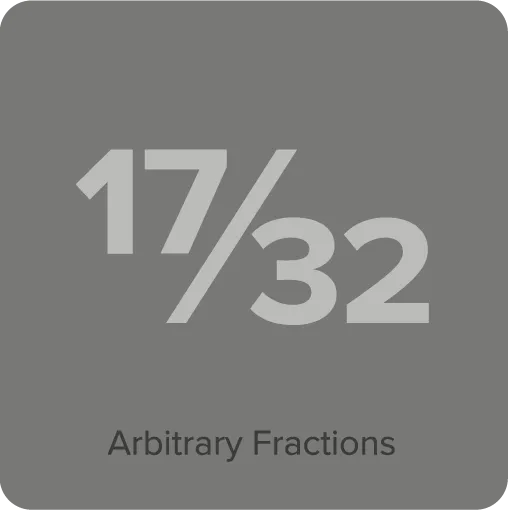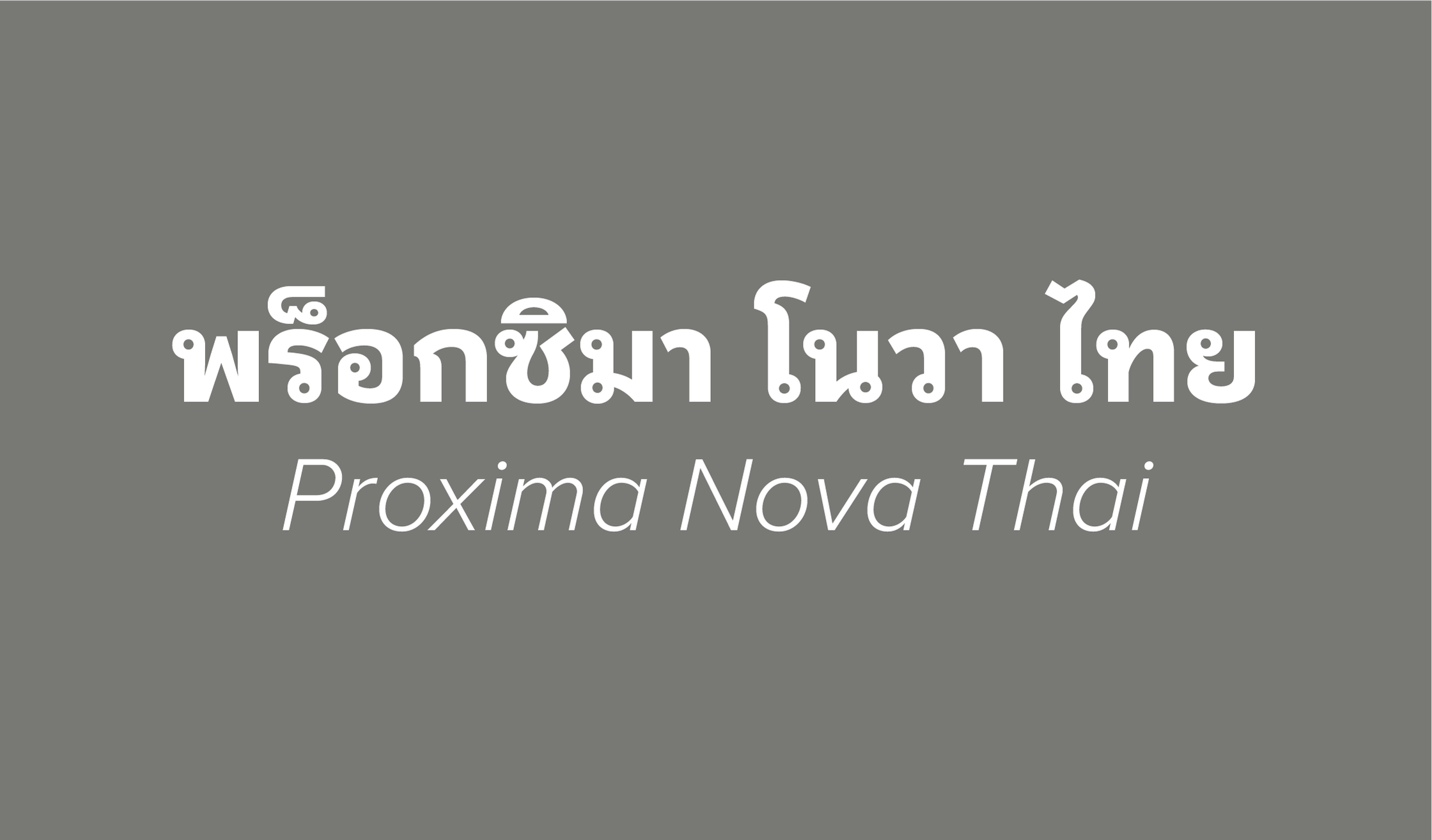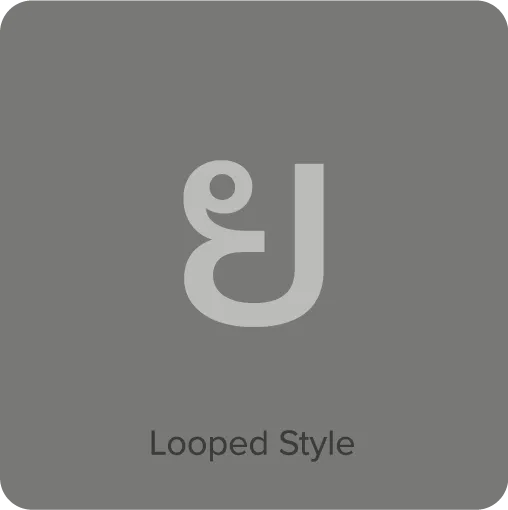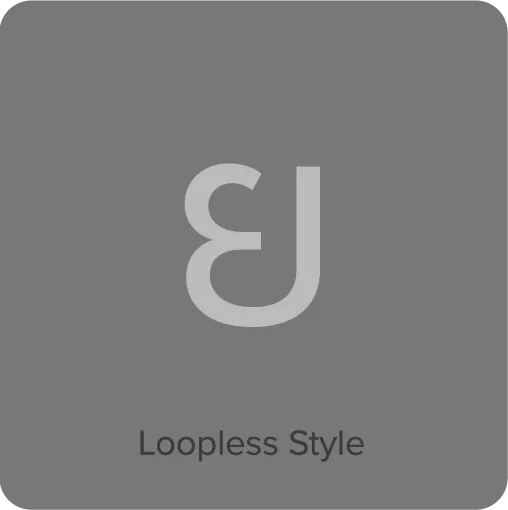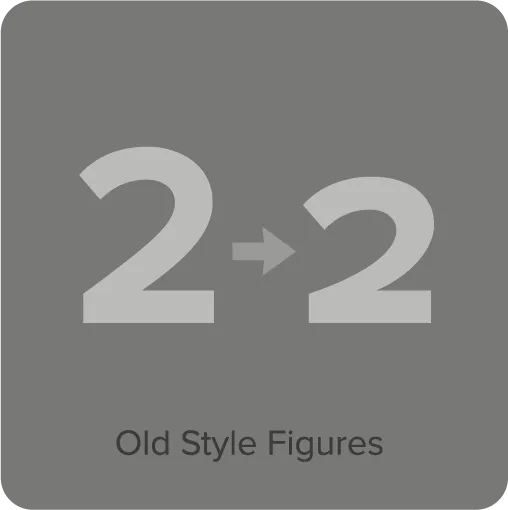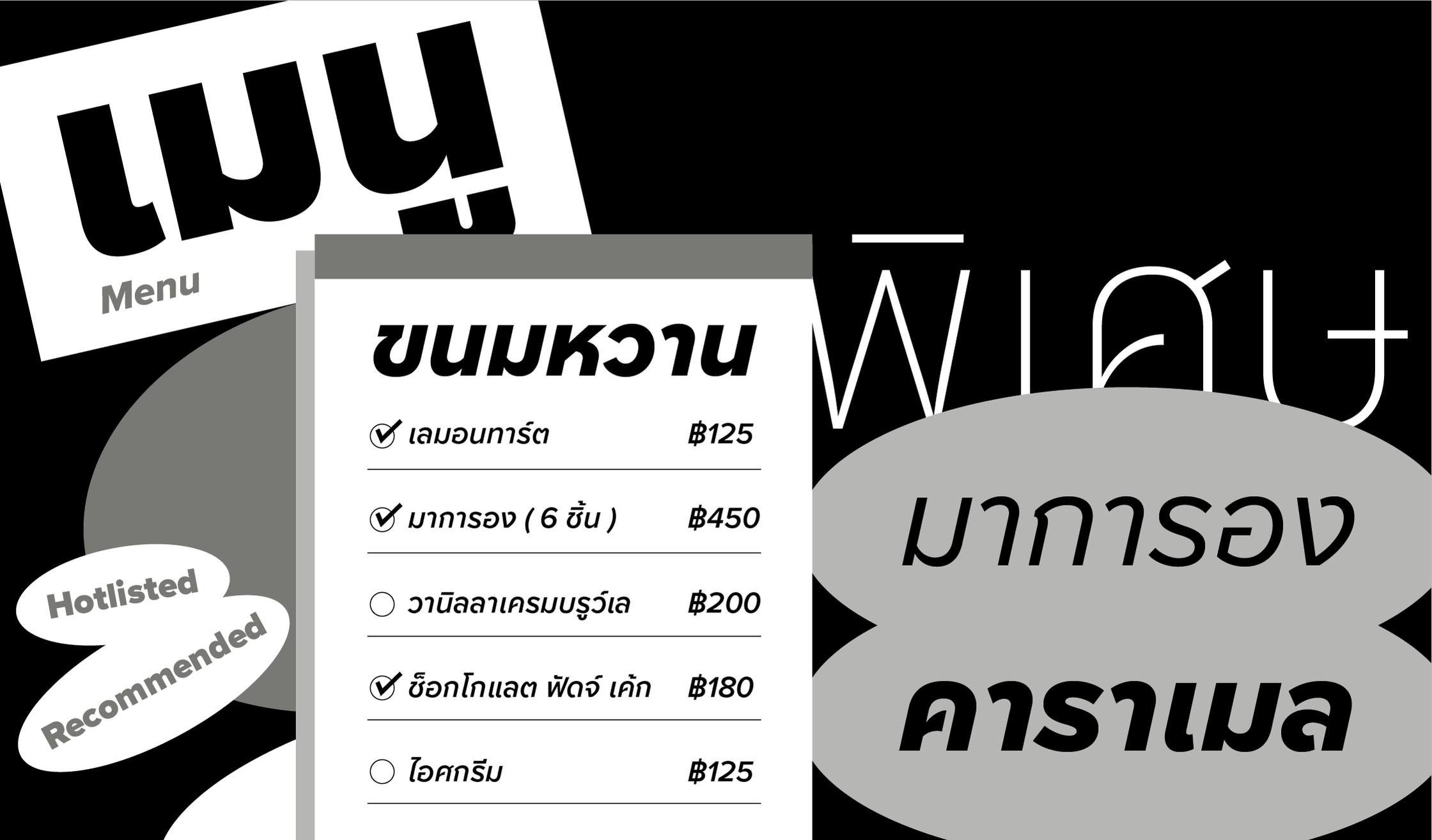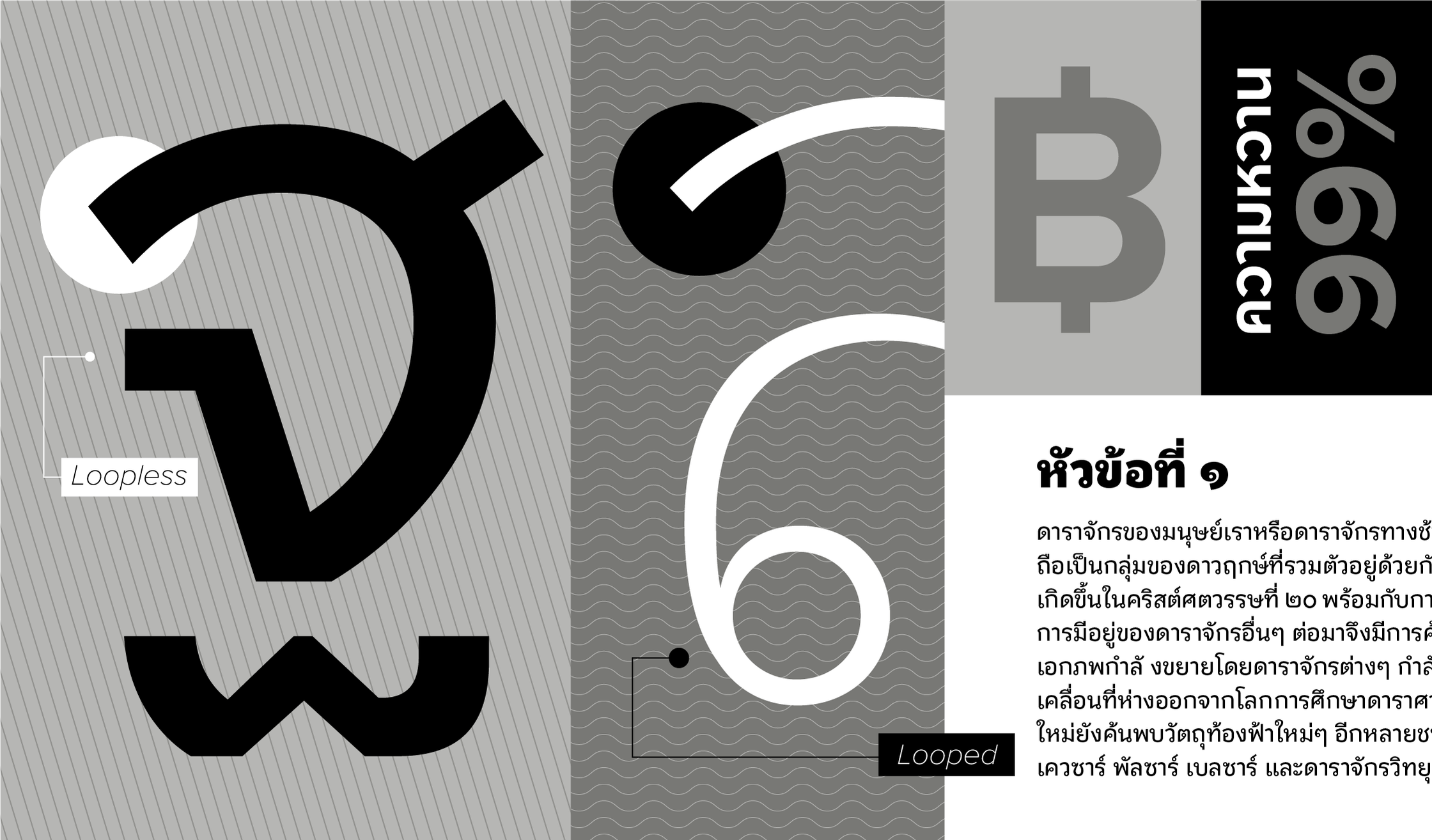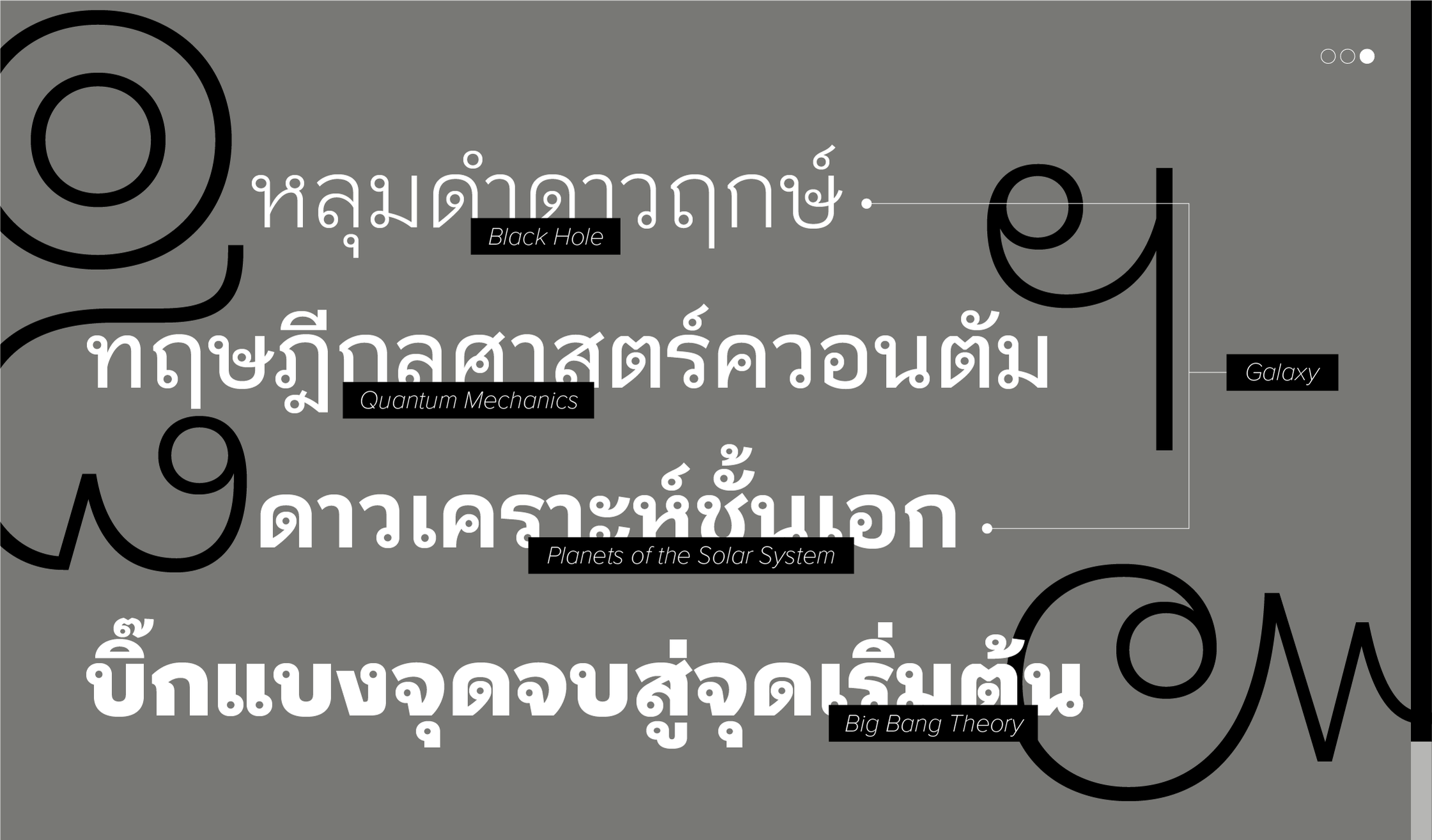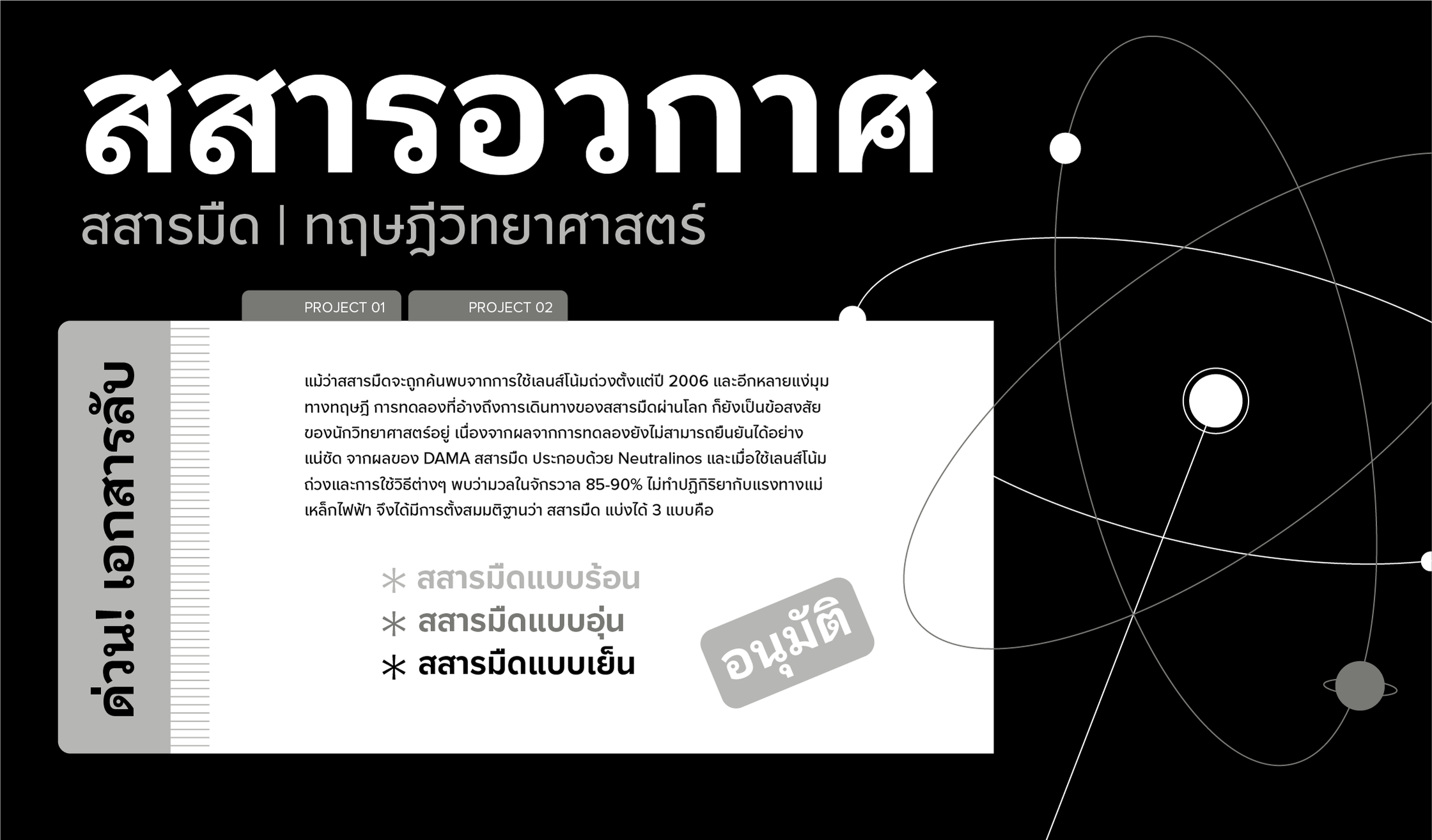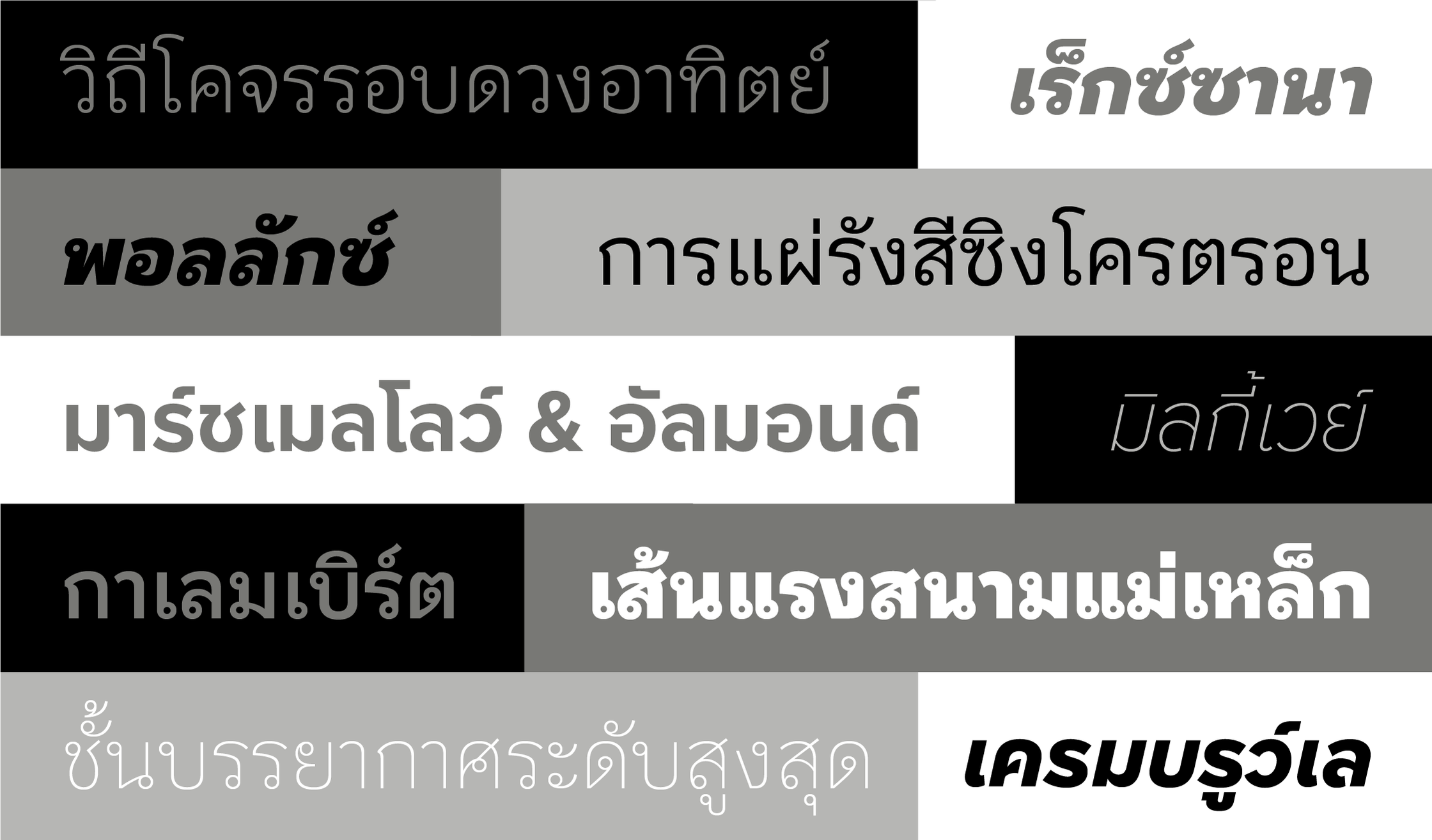
Proxima Nova Thai (2024) was designed by Cadson Demak for Mark Simonson’s ever-popular Proxima Nova. Available in a practical loopless style for display settings and a traditional looped for text and UI, Proxima Nova Thai works seamlessly with the original Latin without losing the script’s texture or cultural significance. Featuring an extended Latin and Vietnamese character set in eight weights plus matching italics, this growing family of typefaces is set to become even more popular worldwide.
Proxima Nova Thai Features
- 8 weights: Thin, Light, Regular, Medium, Semibold, Bold, Extrabold, and Black.
- 2 versions: Looped is a more traditional style of the Thai script generally used for small text settings, and Loopless is a more contemporary style used for display typography.
- Matching italics for all weights.
- Matching small caps for all weights.*
- Case-sensitive forms for all-caps settings.*
- Lining and old style figures (proportional and tabular).*
- Required ligatures.*
- Discretionary ligatures.*
- Full “f” ligature set (ff, fi, fl, ffi, ffl, etc.).*
- Alternate characters (a, l, y, G, slashed zero, and seriffed 1).*
- Thai punctuation, figures, and symbols.
- Automatic arbitrary fractions.*
- Automatic ordinals.*
- Extended language support for Thai, most Latin-based Western and Central European languages. Also includes the capital German sharp S.
- Extended currency support.